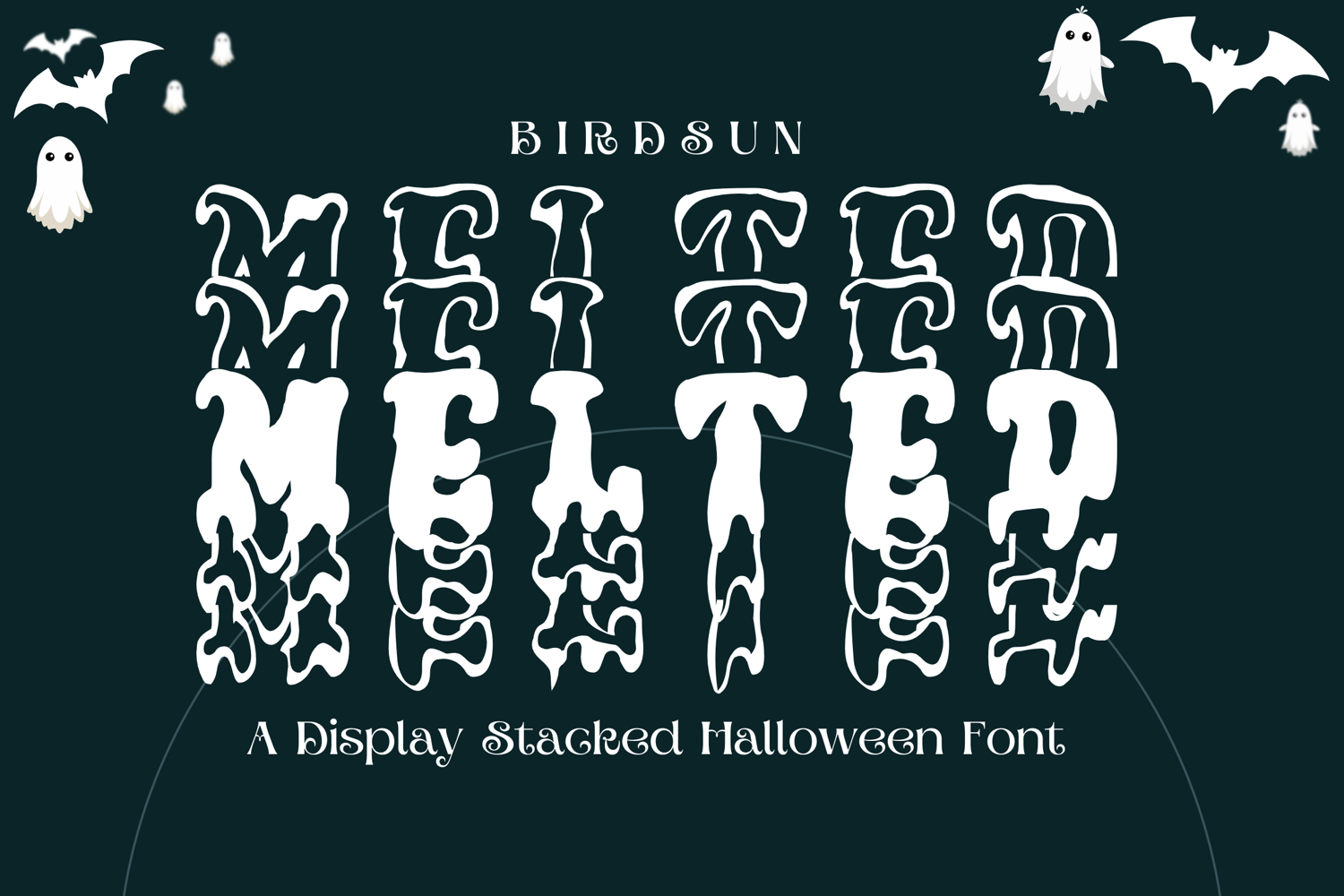
Birdsun Melted Stacked - Playful Drippy Font
Birdsun Melted Stacked
Birdsun Melted Stacked is a bold and quirky display font that blends the charm of handwritten lettering with a gooey, melted twist. Designed for standout and creative titles, this font features a unique stacked layout with a fun, fluid look—perfect for making your designs pop!
Whether you're crafting Halloween party invites, funky t-shirt graphics, retro posters, or personalized monogram gifts, Birdsun Melted Stacked delivers an eye-catching vibe full of personality and flair.
• Birdsun Melted Stacked Font (All-Caps Display)
• A–Z Uppercase Letters
• Alternates & dripping details
• Punctuation & symbols
• Halloween & spooky-themed designs
• Bold headlines & social media graphics
• Stickers, posters, and merchandise